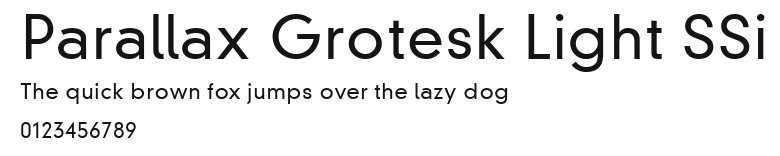
About Parallax Grotesk Light SSi.ttf
Parallax Grotesk Light SSi.ttf is a modern, elegant sans-serif font designed for ultimate readability and visual harmony. Perfect for branding, headlines, web design, and print materials.